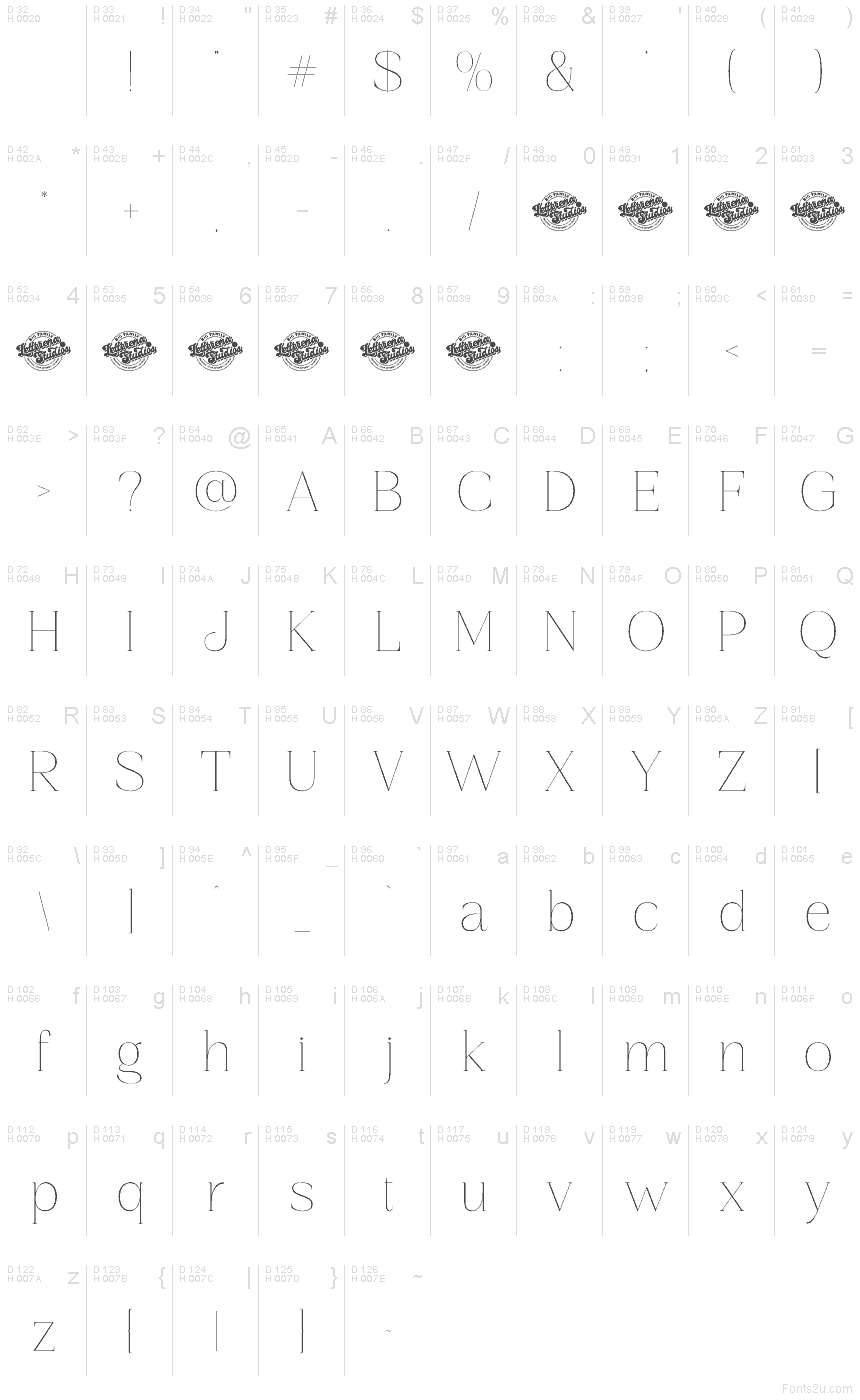
Gestiva DEMO VERSION
Gestiva font is a storybook-like light serif designed by Storytype Studio. The elegant free serif font carries a refined aesthetic with sophisticated features in its curvy stems and terminals. Ill-defined for regular reading, Gestiva leaves an impeccable impression with its classic yet modern appearance that can best serve expressive projects needing identity and voice.
Gestiva acquires instant attention and gives life to branding projects, editorial publications, packaging designs, advertising posters, magazines covers, labels for luxury products like perfumes or jewelry. It can also be greatly used on social media posts where engagement is guaranteed!